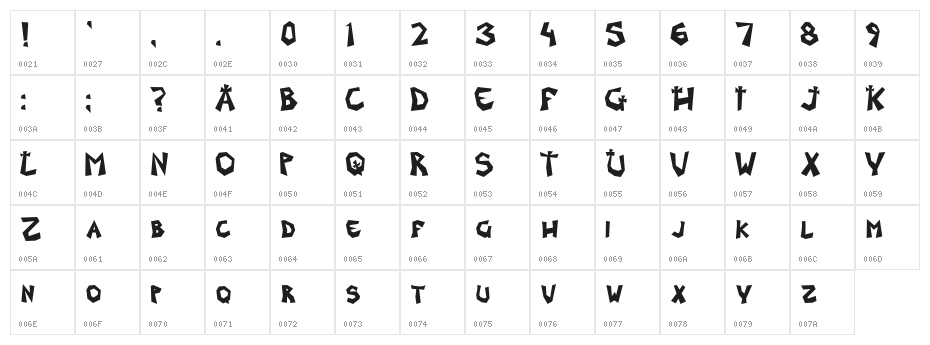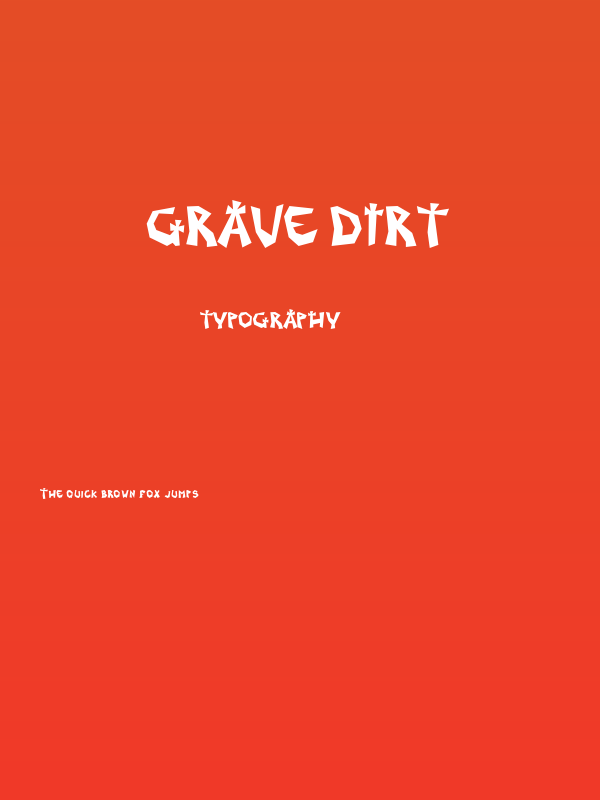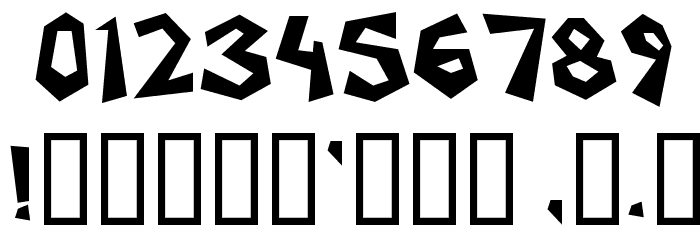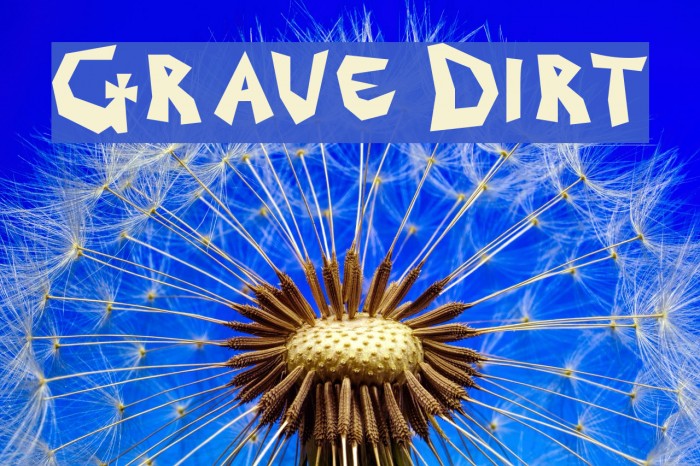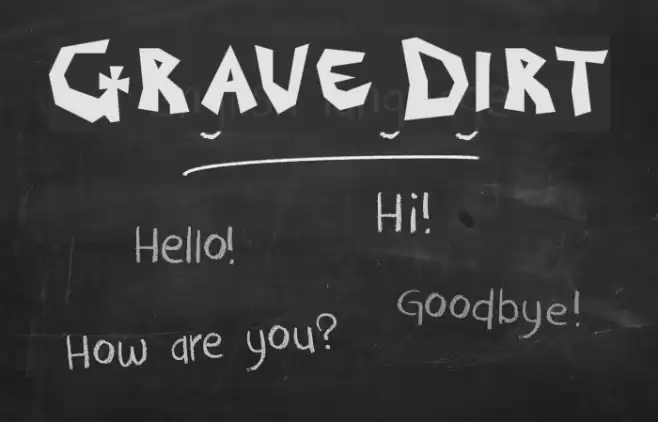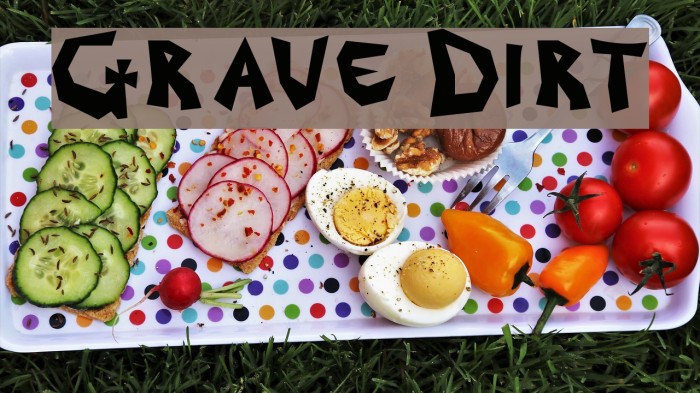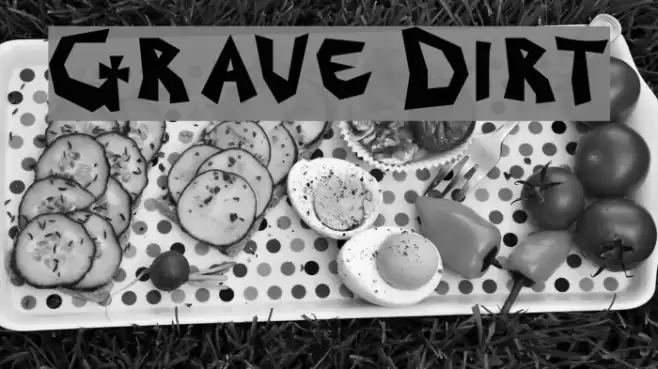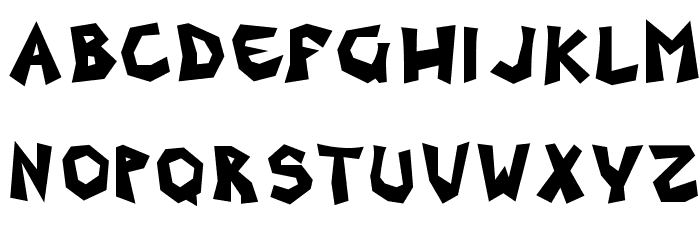
Grave Dirt Font
Grave Dirt Description
This font features a bold and edgy design with sharp, angular lines and a slightly distressed appearance. The uppercase letters are characterized by their jagged edges and irregular shapes, giving them a unique, almost hand-carved look. The lowercase letters maintain this rugged style, with some characters incorporating star-like embellishments. Numbers and special characters follow the same aesthetic, ensuring a cohesive look across all glyphs. The overall style is reminiscent of a horror or Halloween theme, making it ideal for projects that require a dramatic and eye-catching typeface.
| Proposed Projects | Ideal for Halloween-themed posters, horror movie titles, spooky event invitations, and edgy graphic designs. |